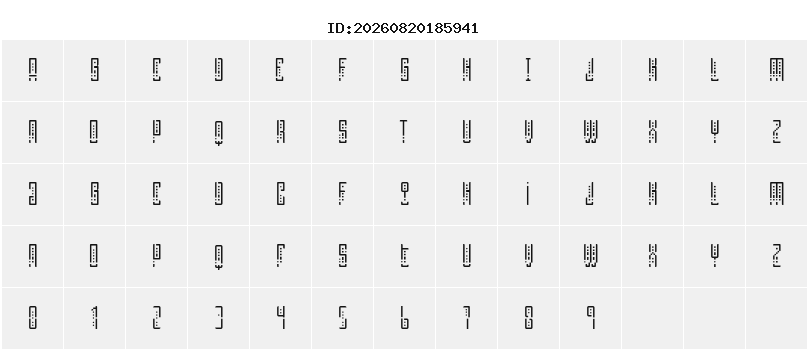
Selknam Unicase Preview
• Font Name: Selknam Unicase
• Designer: Juan Pablo Meza Recabarren
• Manufacturer: Juan Pablo Meza Recabarren
About Selknam Unicase.otf
Selknam Unicase.otf is a modern, elegant sans-serif font designed for ultimate readability and visual harmony. Perfect for branding, headlines, web design, and print materials.